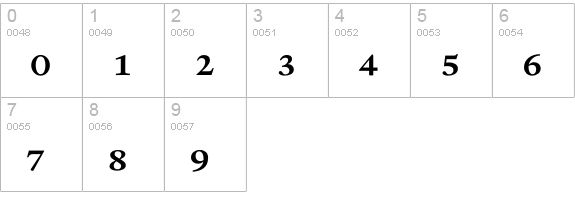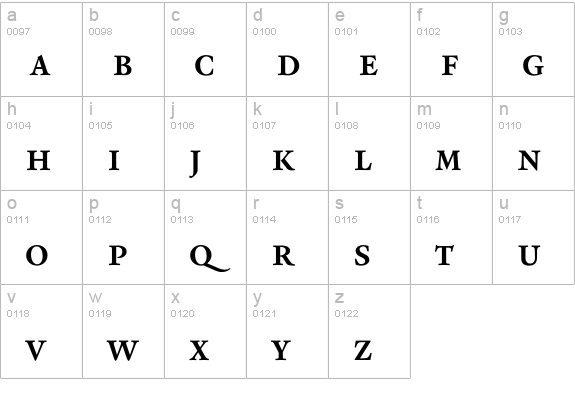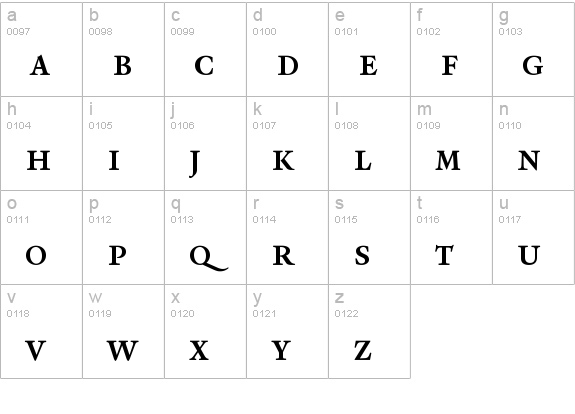
RenardNo1-SmallCaps is a magnificent font that exudes elegance and sophistication. Its unique blend of small capital letters adds a touch of charm and refinement to any design project. This font is perfect for creating eye-catching headlines, logos, and invitations. The carefully crafted small capital letters in RenardNo1-SmallCaps are meticulously designed to captivate attention and make a bold statement. Each letter is meticulously crafted, ensuring that every character has the perfect balance of curves and angles. The result is a font that is both visually appealing and easy to read. One of the most remarkable aspects of RenardNo1-SmallCaps is that it is available for free. That's right, this stunning font can be downloaded at no cost from the renowned FontsMarket.com. This means that you can add a touch of elegance to your designs without breaking the bank. Whether you are a professional graphic designer or a creative enthusiast, RenardNo1-SmallCaps is a font that will elevate your designs to new heights. Its versatility allows it to be used in a variety of projects, from print materials to digital designs. So why wait? Add a touch of class to your next design project with RenardNo1-SmallCaps. Download it for free at FontsMarket.com and let your creativity soar.